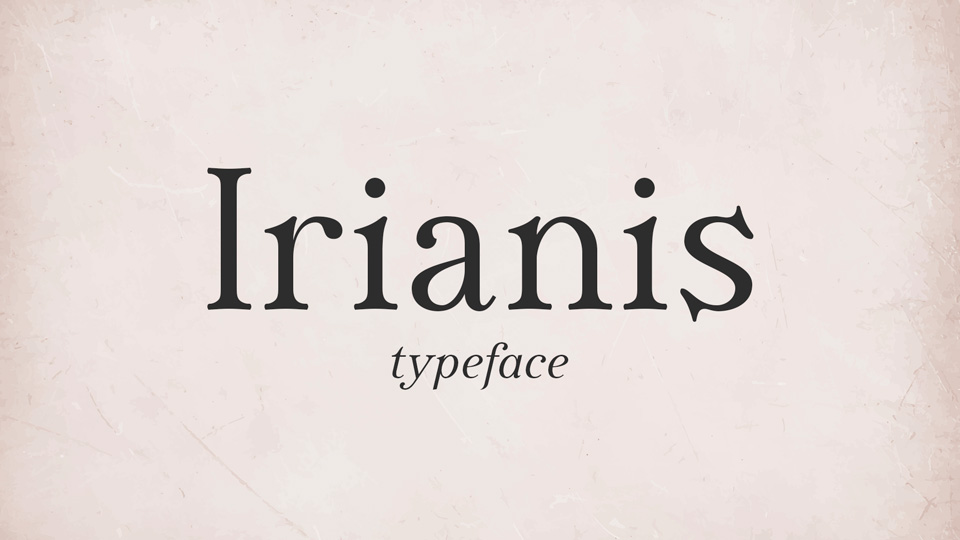
Download Irianis typeface, an elegant, noble, very readable and moderately contrasted font family in the spirit of Renaissance fonts. Irianis is very suitable for text and titling for all elegant and stylish publications.
Designer: Arkandis Digital Foundry